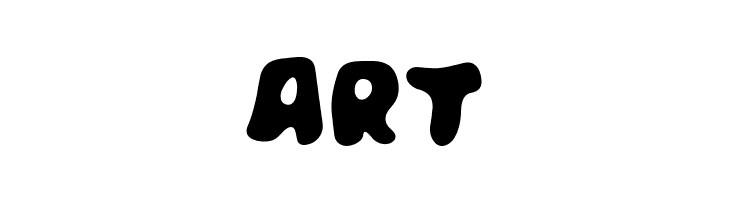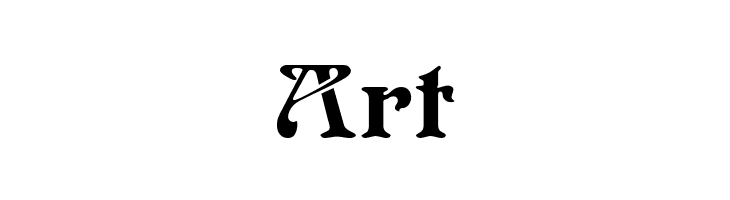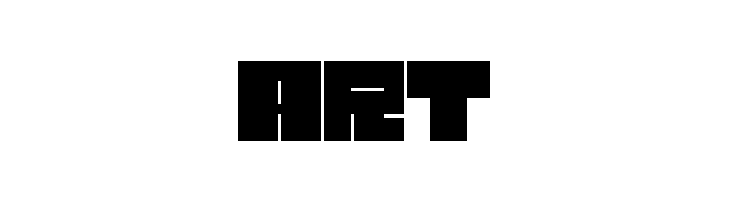
A modern yet vintage font with tall, narrow letterforms and rounded edges.
A bold, decorative font with intricate, mythical-inspired designs.
A bold, playful script font with rounded, connected letters.
A bold, high-contrast serif font with dramatic flair and elegant curves.
A playful, bold font with rounded, bubbly characters and a whimsical style.
A bold, geometric font with blocky, angular letterforms.
A bold, geometric font with a modern, block-like design.
A pixelated, blocky font with a retro digital display style.